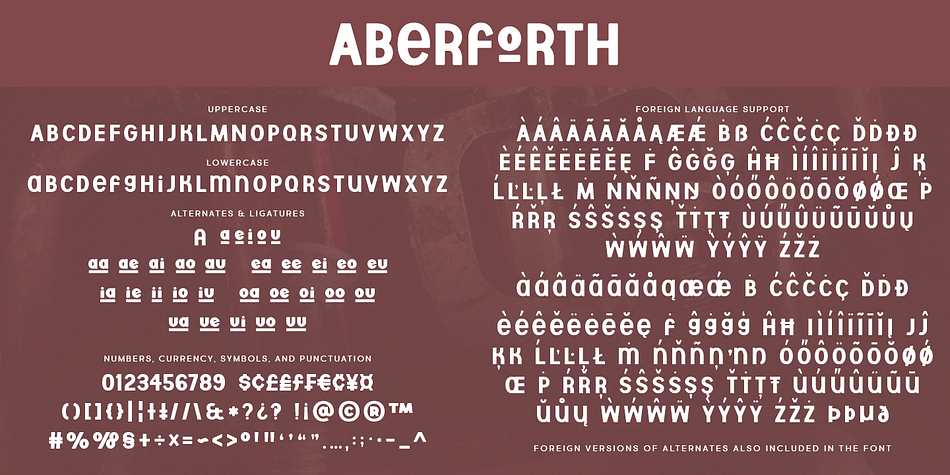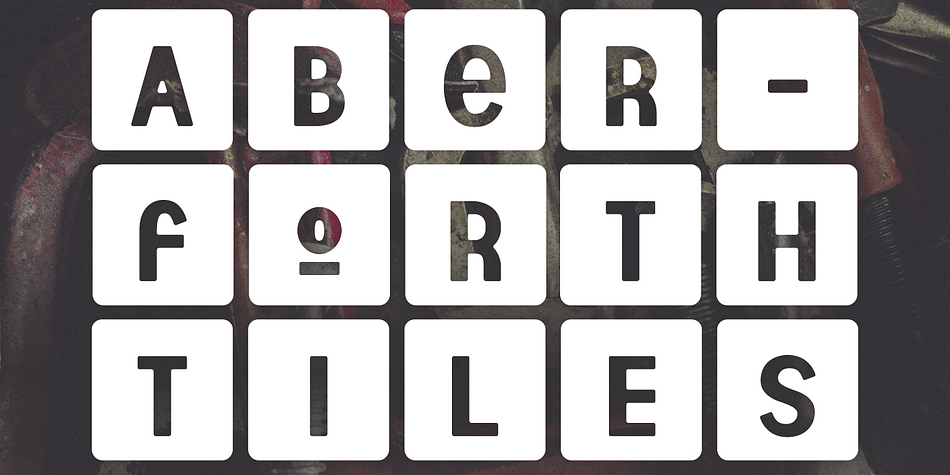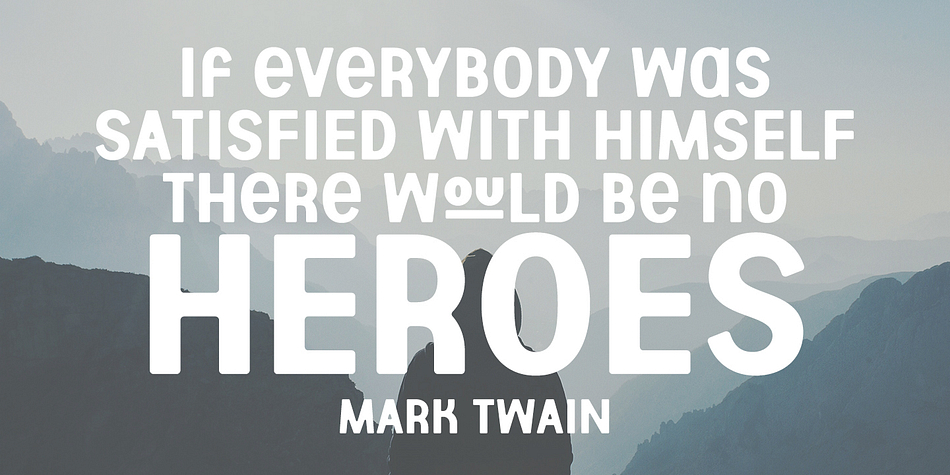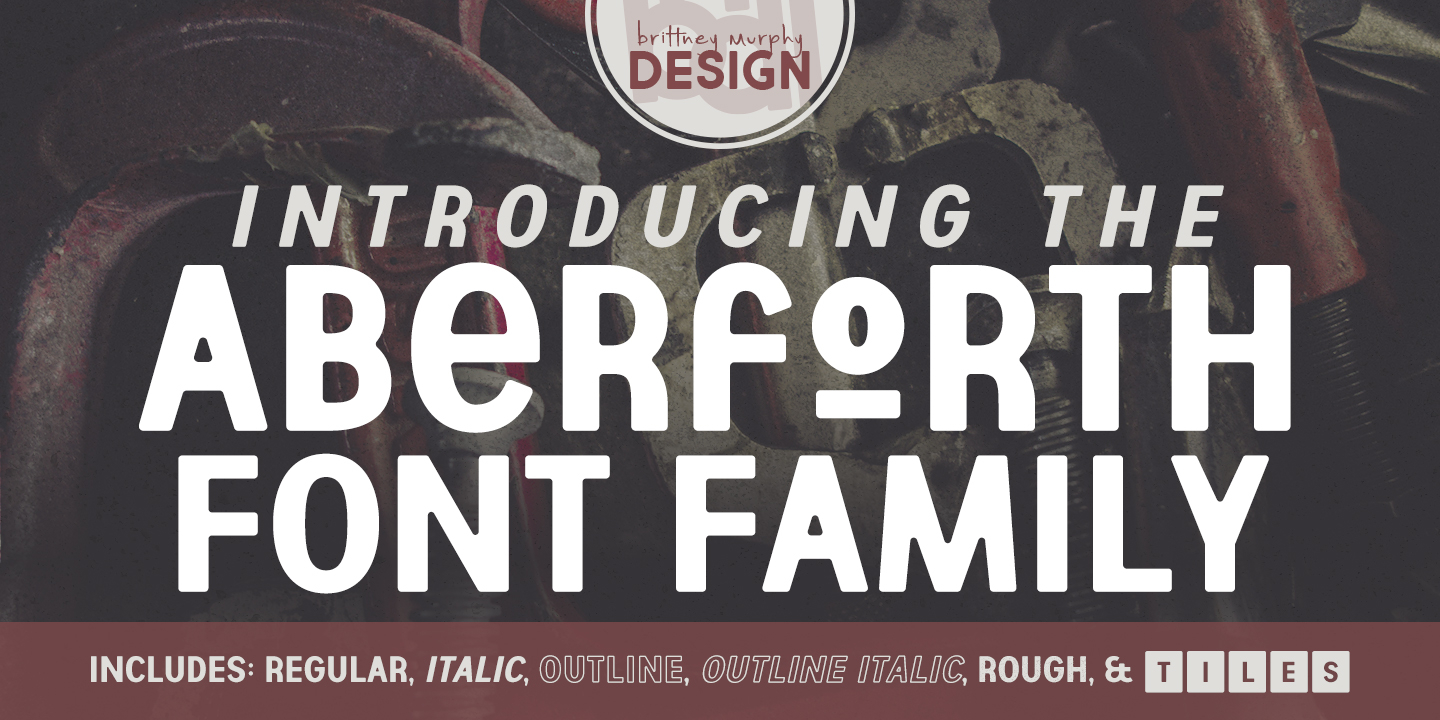
Aberforth is a display sans and hand display font family. This typeface has six styles and was published by Brittney Murphy Design.
Clean, mixed-case font family. It’s mono-height, so it pairs well with other fonts. Family includes regular, rough, outline, tiles, and italic versions.